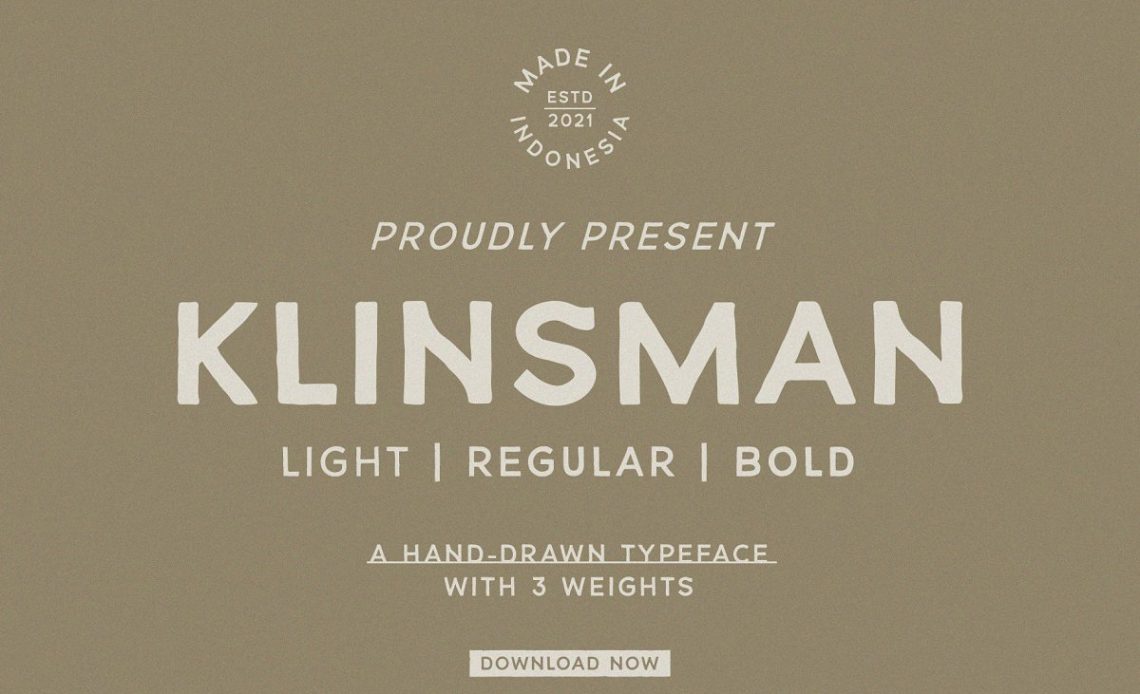
Introducing KLINSMAN, the ultimate choice for anyone looking to add a vintage feel to their designs. Created by the talented Liszar Inzani, this sans-serif font is a must-have for all your branding needs. Inspired by Akzidenz Groteks, KLINSMAN is a hand-drawn typeface that oozes character and style. It comes in three weights - light, regular, and bold - and is the perfect choice for logos, t-shirts, labels, badges, and more.
KLINSMAN is one of the best fonts for lettering, and it's easy to see why. With its unique, hand-drawn character and vintage feel, this font will take your designs to the next level. It's perfect for anyone who wants to add a touch of nostalgia to their work.
When you download KLINSMAN, you'll get everything you need to start creating amazing designs. The font includes uppercase and lowercase letters, numbers, currency symbols, and standard punctuations. Plus, you'll get nine editable logo templates in AI and EPS formats, making it easy to create stunning logos that stand out.
One of the best things about KLINSMAN is its multilingual support. It supports a wide range of languages, including ÀÁÂÃÄÅÇÐÈÉÊËÌÍÎÏÑØÒÓÔÕÖÙÜÚÛÝŸÆŒßÞþ, making it a great choice for designers who work with clients from around the world.